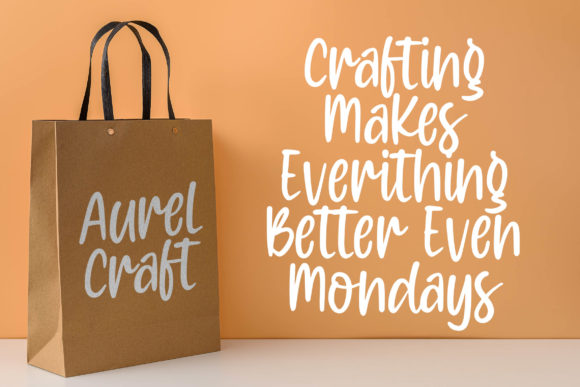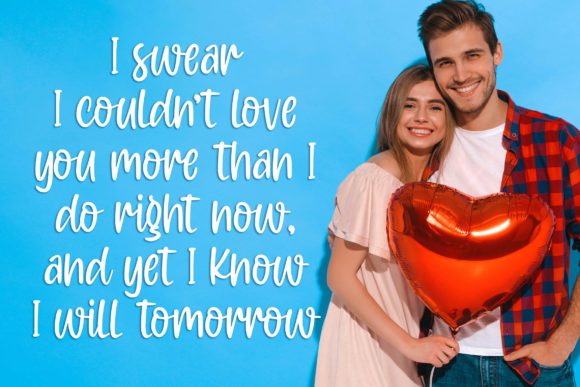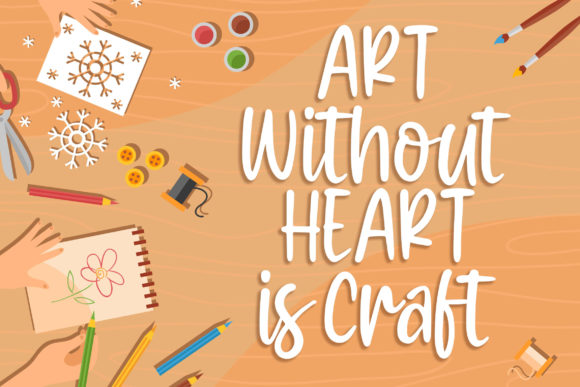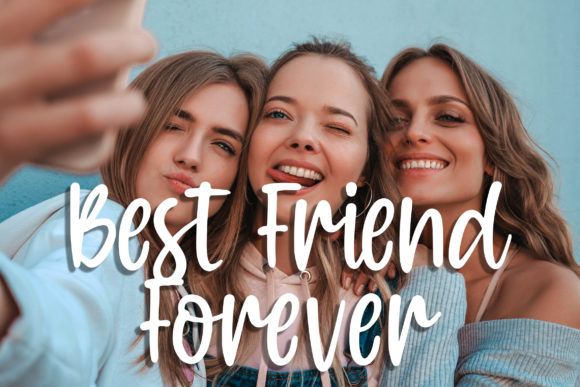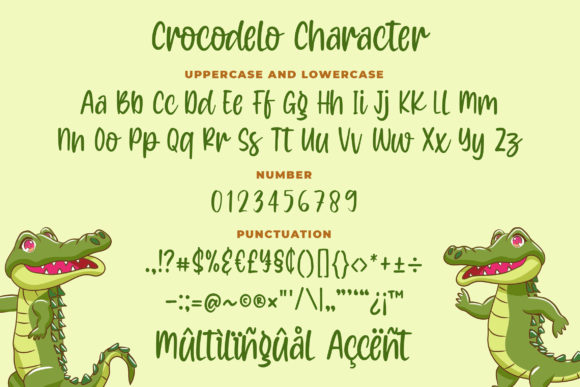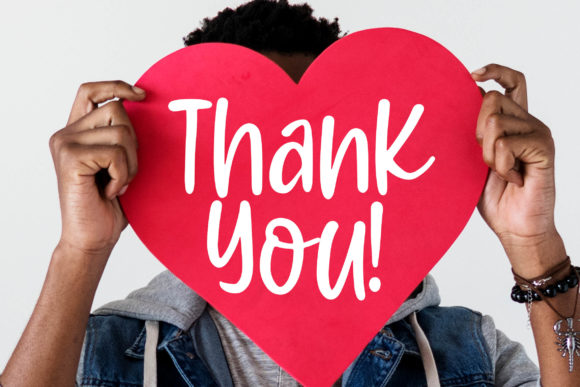
Crocodelo Font: Unleash Your Creativity with this Quirky and Authentic Script
Are you tired of using the same old fonts in your designs? Look no further than Crocodelo Font, a playful script that is sure to add a touch of whimsy and personality to any project. With its unique charm and authentic feel, Crocodelo is the perfect choice for designers and crafters looking to take their designs to the next level.
The Unique Charm of Crocodelo Font
Crocodelo Font is a one-of-a-kind script that exudes a sense of quirkiness and fun. Its irregularities and imperfections give it a handmade feel that is both authentic and endearing. The font’s unique charm lies in its ability to evoke a sense of playfulness and creativity, making it perfect for designs that require a touch of personality.
Whether you’re working on a branding project, a craft tutorial, or a social media graphic, Crocodelo Font is sure to add a dash of whimsy and flair. Its versatility and charm make it an excellent choice for a wide range of design applications, from invitations and greeting cards to logos and packaging.
What Makes Crocodelo Font So Special?
So, what sets Crocodelo Font apart from other fonts? Here are just a few features that make it so special:
• Unique and Quirky Design: Crocodelo Font boasts a distinctive design that is both quirky and charming. Its irregularities and imperfections give it a handmade feel that is hard to find in digital fonts.
• Authentic and Handmade Feel: The font’s authentic and handmade feel makes it perfect for designs that require a personal touch. Whether you’re creating a craft tutorial or a social media graphic, Crocodelo Font is sure to add a touch of personality.
• Playful and Versatile: Crocodelo Font is incredibly versatile and can be used in a wide range of design applications. Its playful nature makes it perfect for designs that require a dash of whimsy and flair.
How to Use Crocodelo Font in Your Designs
Using Crocodelo Font in your designs is easy! Here are a few tips to get you started:
• Pair it with Bold Fonts: Pair Crocodelo Font with bold fonts to create a striking contrast that adds visual interest to your design.
• Use it for Headings and Titles: Crocodelo Font is perfect for headings and titles, where its unique charm and personality can shine.
• Add it to Your Craft Tutorials: Add Crocodelo Font to your craft tutorials to give them a personal touch and make them more engaging.
Why Designers and Crafters Love Crocodelo Font
Designers and crafters love Crocodelo Font for its unique charm and versatility. Here are just a few reasons why:
• Easy to Read: Despite its quirky design, Crocodelo Font is easy to read, making it perfect for designs that require a touch of personality without sacrificing legibility.
• Customizable: Crocodelo Font is highly customizable, allowing you to adjust its size, color, and style to fit your design needs.
• Perfect for Branding: Crocodelo Font is perfect for branding projects, where its unique charm and personality can help you stand out from the crowd.
In conclusion, Crocodelo Font is a playful script that is sure to add a touch of whimsy and personality to any design. With its unique charm and authentic feel, it’s the perfect choice for designers and crafters looking to take their designs to the next level. Whether you’re working on a branding project, a craft tutorial, or a social media graphic, Crocodelo Font is sure to delight. So why not give it a try and see how it can elevate your designs?